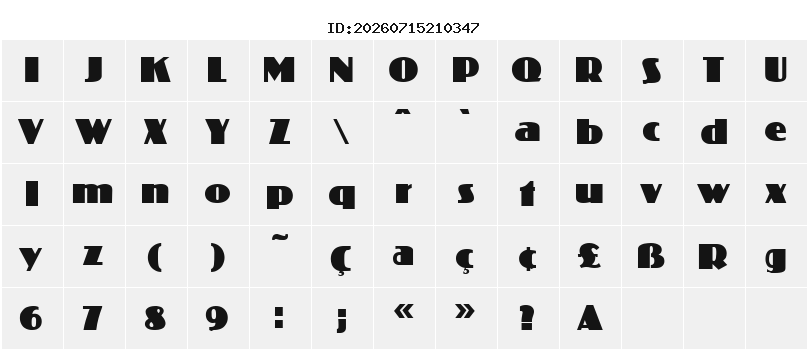
䅵䭯汯獳 Preview
About 䅵䭯汯獳.ttf
䅵䭯汯獳.ttf is a modern, elegant sans-serif font designed for ultimate readability and visual harmony. Perfect for branding, headlines, web design, and print materials.